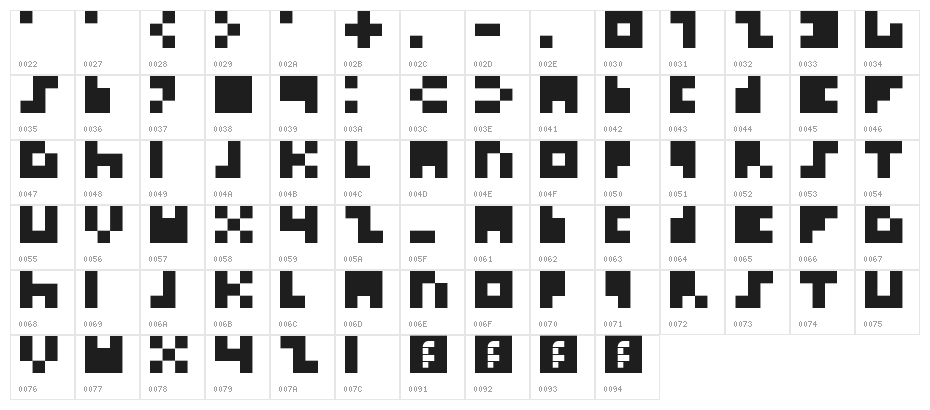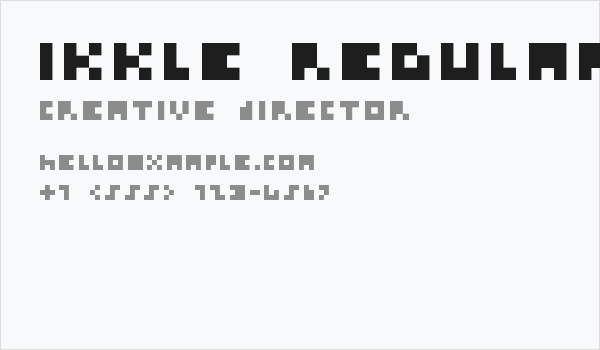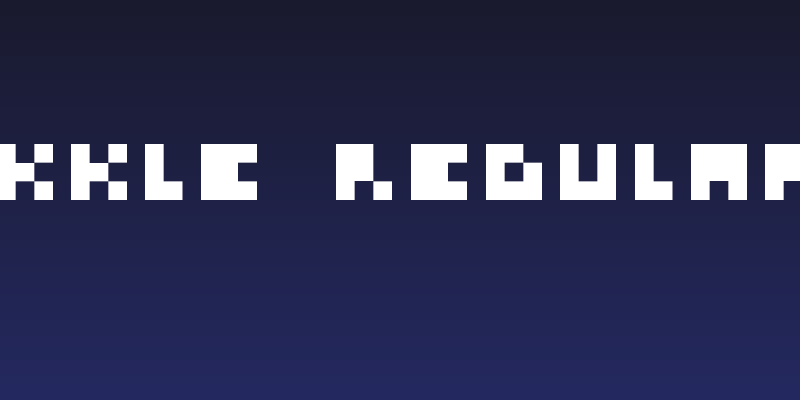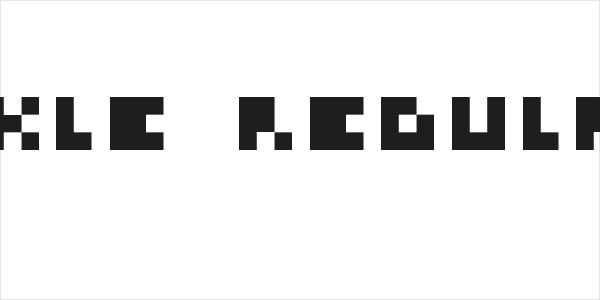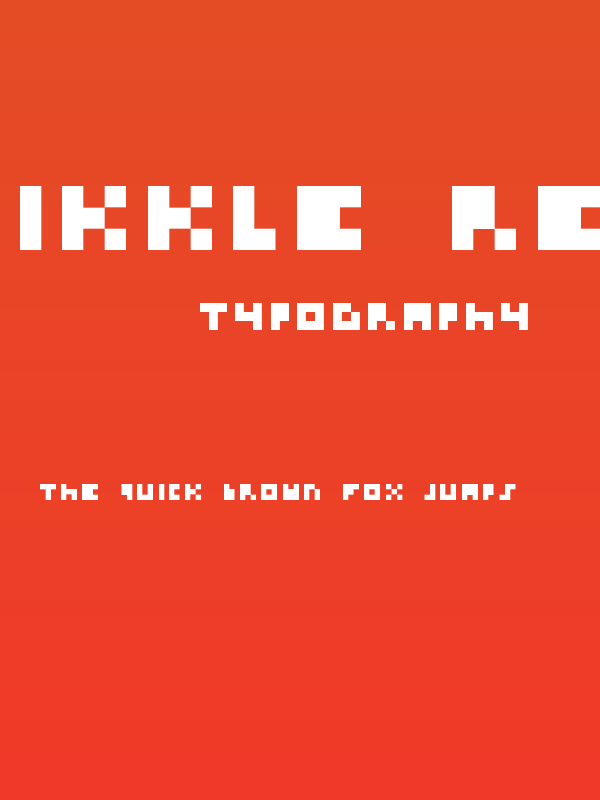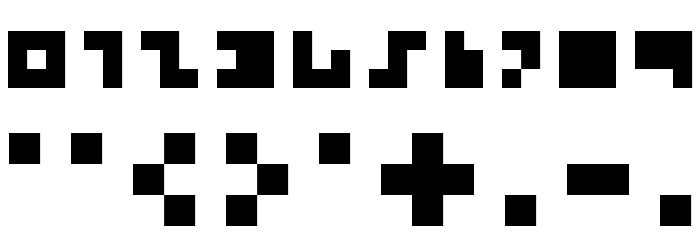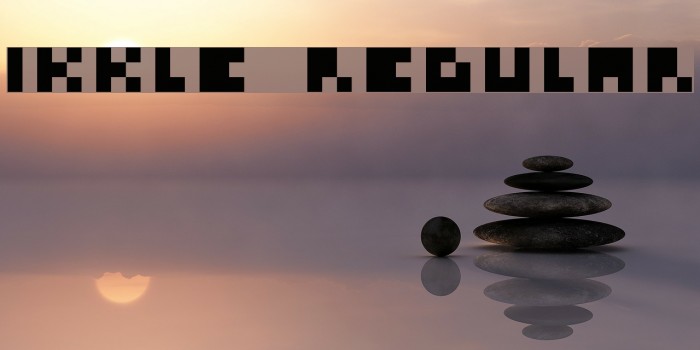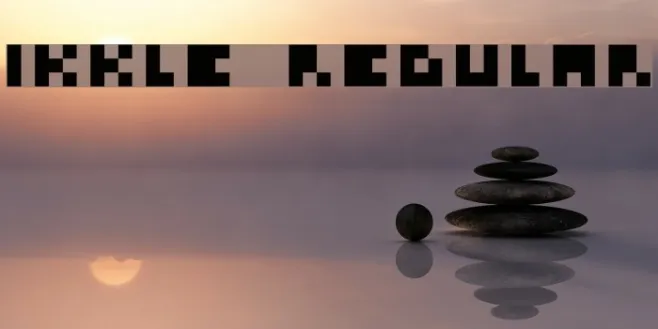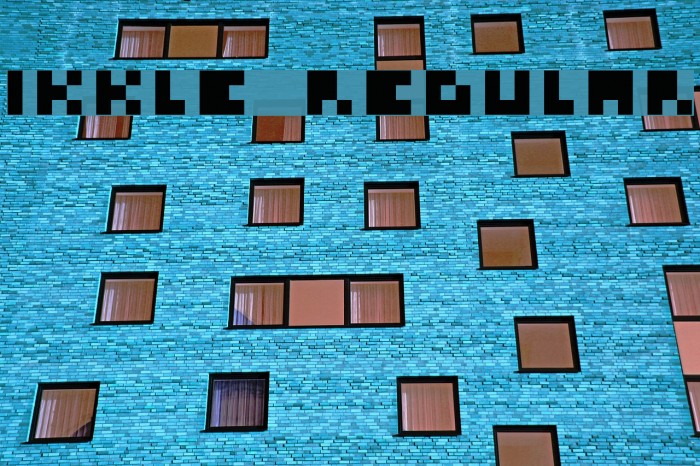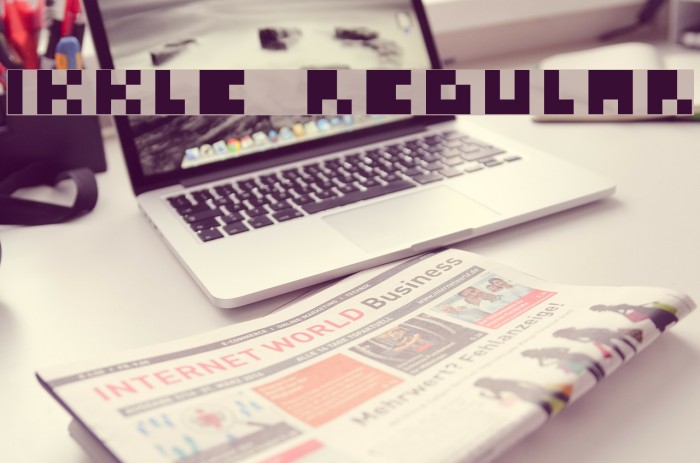
Ikkle Regular Font
Ikkle Regular Description
This font features a bold, geometric design with a pixelated aesthetic reminiscent of early digital typography. Each character is constructed with sharp, angular lines and blocky shapes, creating a distinct, modern appearance. The uppercase and lowercase letters maintain a consistent style, with minimal differentiation between them, emphasizing uniformity and simplicity. The numerals and special characters follow the same design principles, ensuring a cohesive look across all glyphs. This font's unique style makes it stand out, offering a retro yet futuristic vibe that is both eye-catching and memorable.
| Proposed Projects | Ideal for video game design, tech branding, digital art projects, and retro-themed posters. |